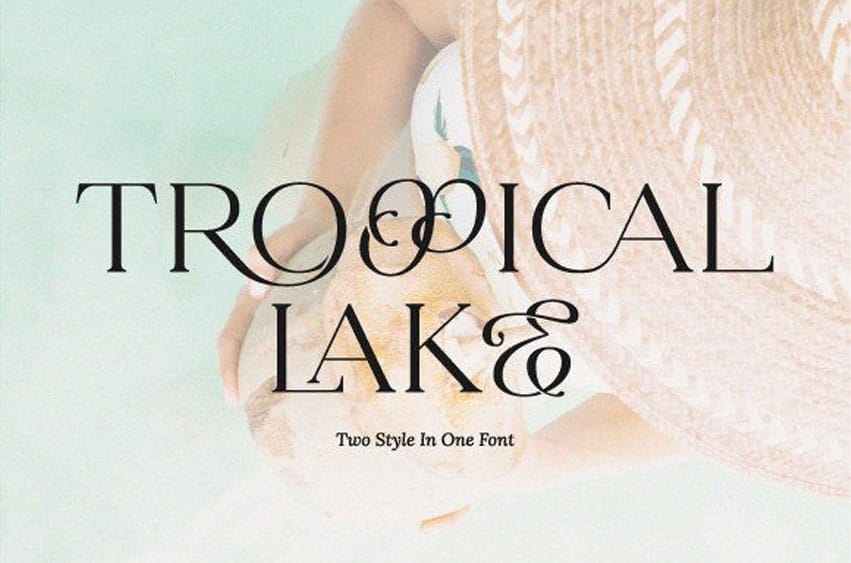
Tropical Lake Font
Tropical Lake Font has beautiful letter combinations in one font to shorten your creative time.
Perfect for branding, titles, logos, wedding invitations, and more.